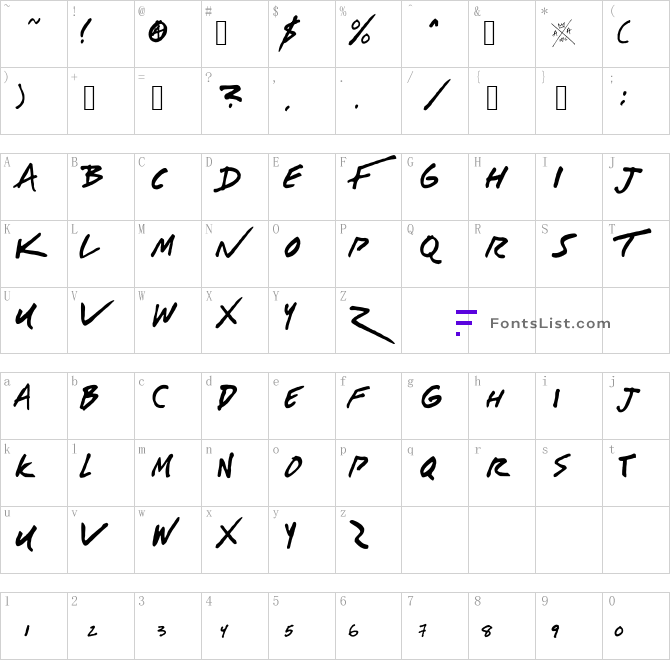
AMERIC_N-auTHOrS.ttf is a very beautiful artistic font, AMERIC_N-auTHOrS.ttf is widely used in the design and printing of various books and pictures,AMERIC_N-auTHOrS.ttf has a strong visual impact,AMERIC_N-auTHOrS.ttf is a commonly used font in newspapers, magazines and books, and is used in posters, e-commerce Poster design, store design, logo design, font design and other fields.AMERIC_N-auTHOrS.